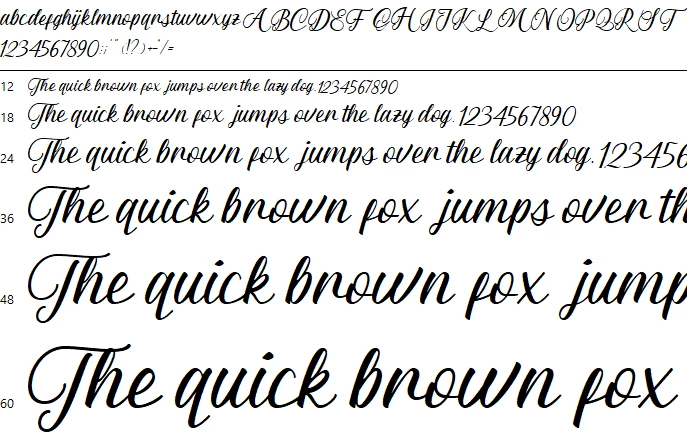
Almyra, a stunning script and calligraphy font, is now available. Alphabeta created it and shared it. This is a premium typeface that can be purchased from the creative market. Because of its calligraphic appearance, the Almyra Font has found a home in handwritten literary styles. It appears that someone drew by hand and then converted the drawing into a textual style document. Every letter uses the text style family to provide a personal touch to the material.
It has exceptional specifications, as evidenced by the font style surface images we’ve posted right now. This high-quality CorelDraw Font textual style is only available in a standard individual form, with 94 characters including capitalized, lowercase, accentuation checks, and digits. These characters emphasize their unique qualities. Along these lines, we can say that the creator has demonstrated his smart form of plan thinking in creating this amazing work of art. Furthermore, that most refreshing text style has been supported by Truetype features in a variety of worldwide dialects.
| Name | Almyra Script Font |
| Style | Script, Calligraphy |
| Designer | Alphabeta |